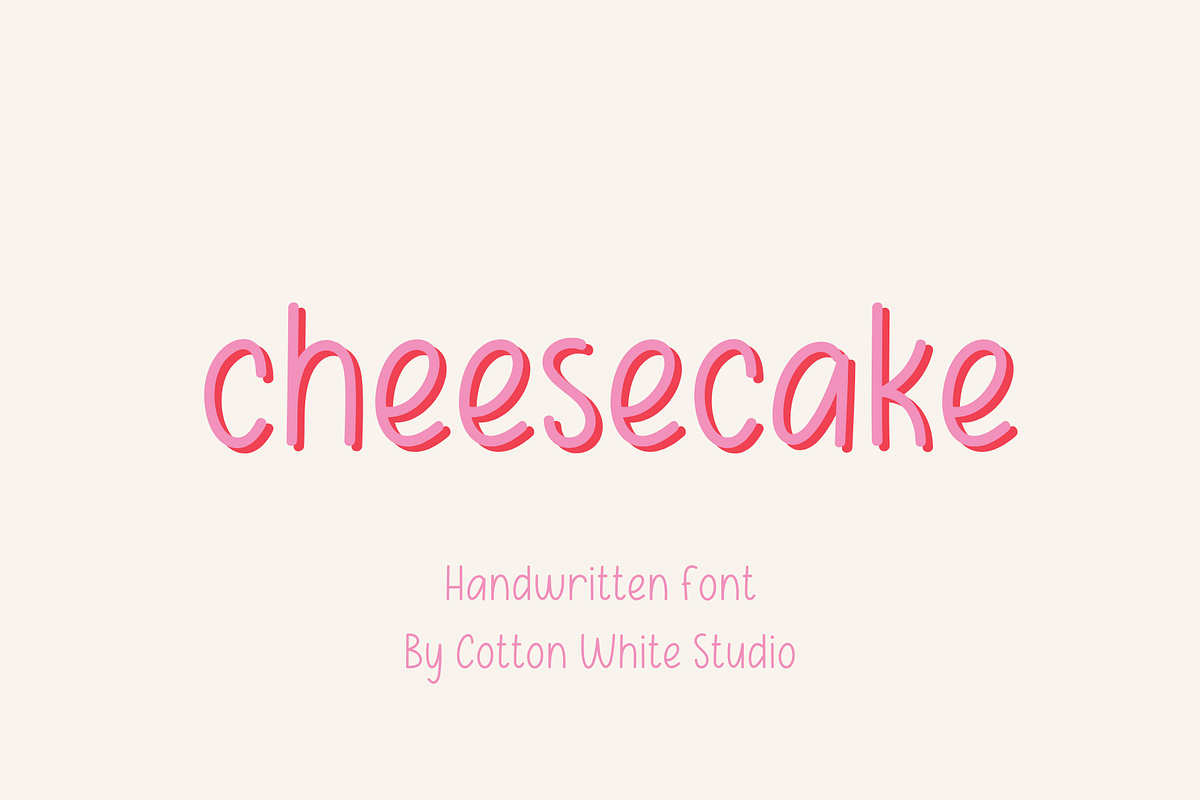
Cheesecake Font Free Download is a sweet and charming script typeface with a playful, handwritten feel. With its smooth curves, slightly retro vibes, and easygoing personality, this font is perfect for dessert packaging, branding, event invitations, social media graphics, and any creative project that calls for a lighthearted, fun touch.
Cheesecake combines elegance with a relaxed flow, making it suitable for both formal and casual designs. Whether you're designing a food-related product or creating a custom logo, this font adds a cozy, inviting feel to your work.
Add a bit of sweetness to your designs with the delightful style of Cheesecake!